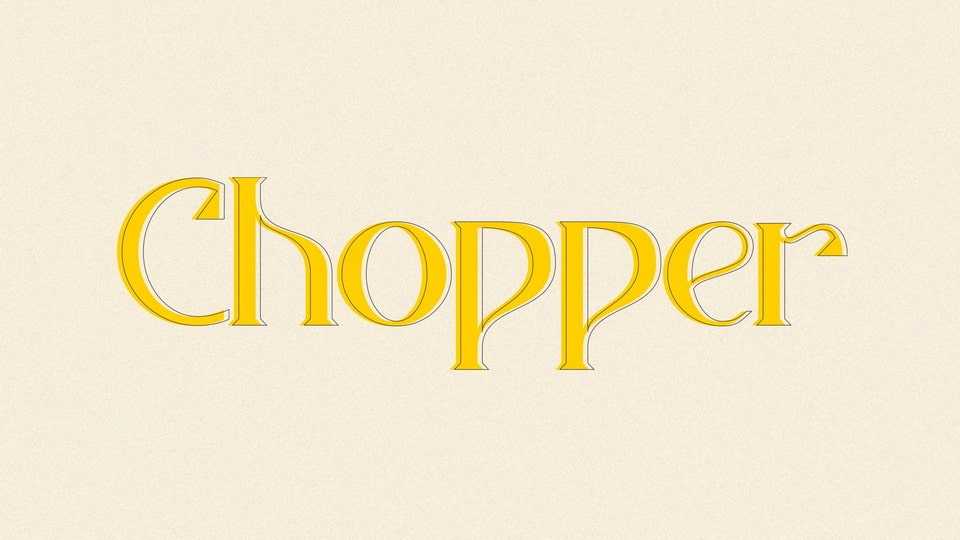
Download Chopper font, a display serif typeface with beautiful curves. Chopper font is useful for headlines, logotype designs, posters or t-shirts, business cards.